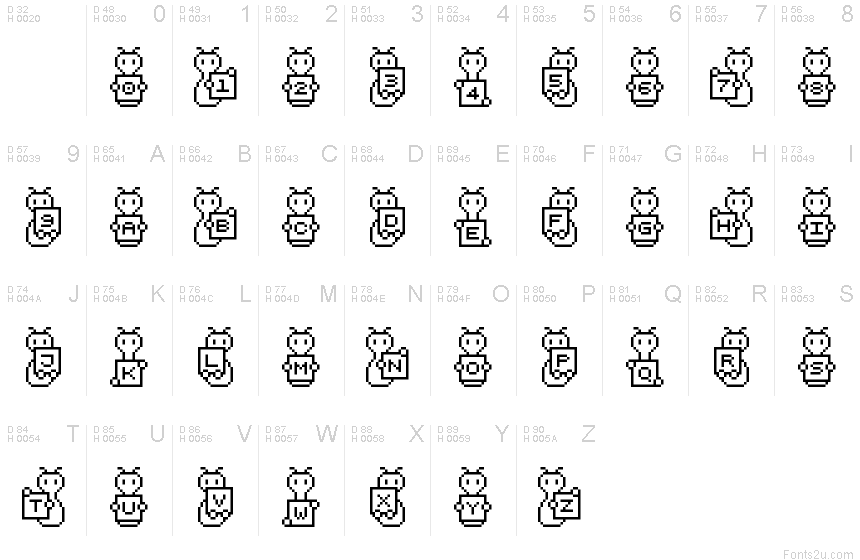
Alien ABC
Alien ABC font by T. Koster is a free decorative display typeface that turns every letter into a tiny pixel alien holding up a sign. Each character feels like a sprite from an old-school space game: chunky, grid-based, and delightfully low-res, with just enough detail to read quickly while still feeling playful and odd. Set large, the characters line up like a marching band of extraterrestrials, giving your text a quirky narrative all by itself.
Using Alien ABC, you can brand kids’ sci‑fi events, retro game jams, coding camp posters, stickers, logos, and streaming overlays with a consistent, story-driven look. This free font shines on titles, badges, and banners where you want instant charm and a gentle “8‑bit invasion” vibe. Pair Alien ABC with a clean monospaced or pixel sans for body text, and keep the aliens for short phrases so their personality stays strong and readable.